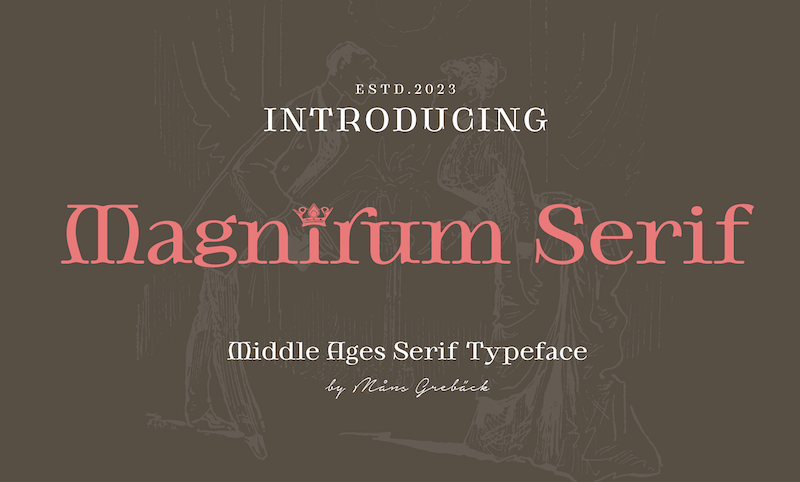
Preview and download Magnirum Serif Font. Created by Måns Grebäck in Gothic Various styles with Free for personal use license.
NOTE: This font is for PERSONAL USE ONLY! To purchase a commercial license, visit: http://mn.sg/magnirum-serif Magnirum Serif is a serif typeface with a medieval flair. Drawing inspiration from historic typography and medieval design, Magnirum Serif is a timeless creation that exudes beauty and elegance. Add symbol # after any letter to place a crown on top of it. Example: Cro#wn For questions, please visit www.mansgreback.com/faq |